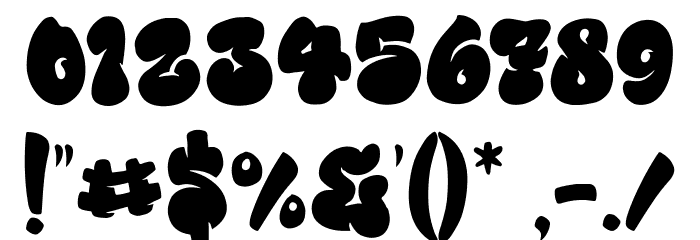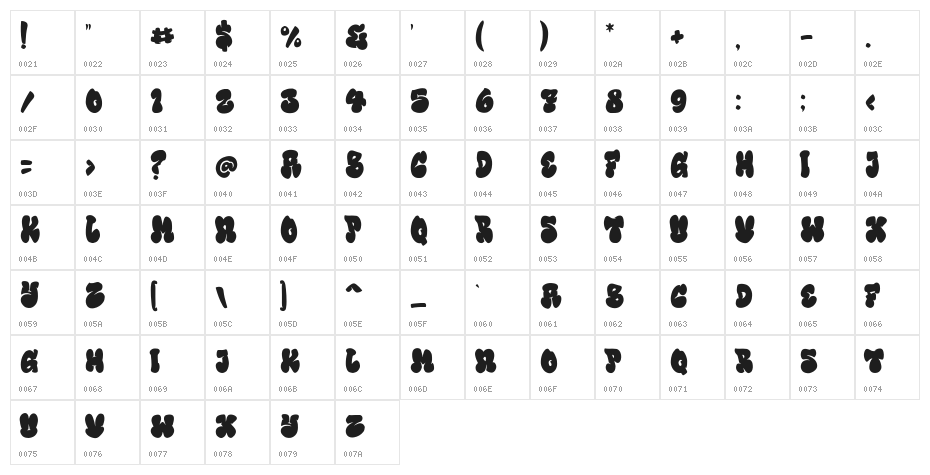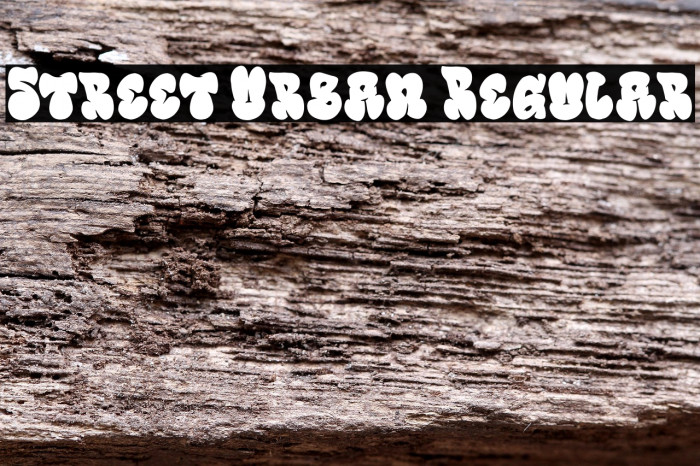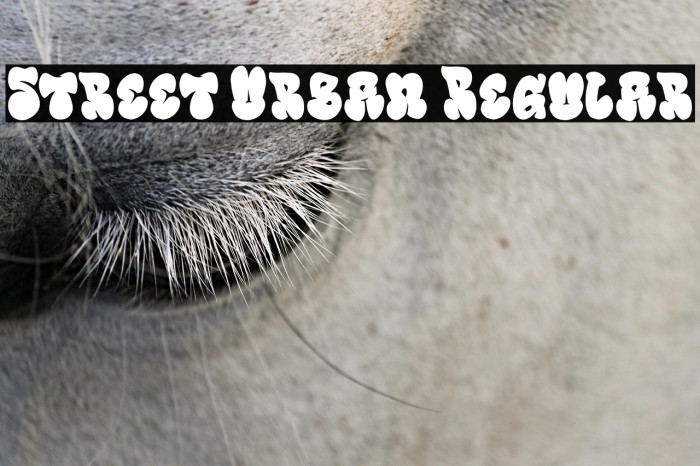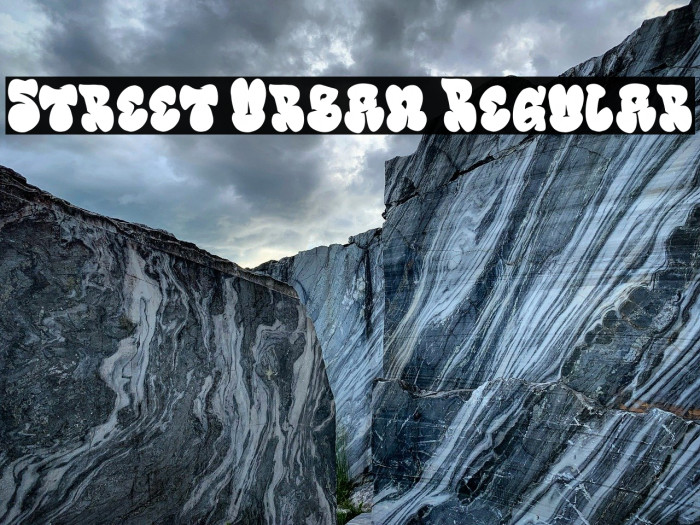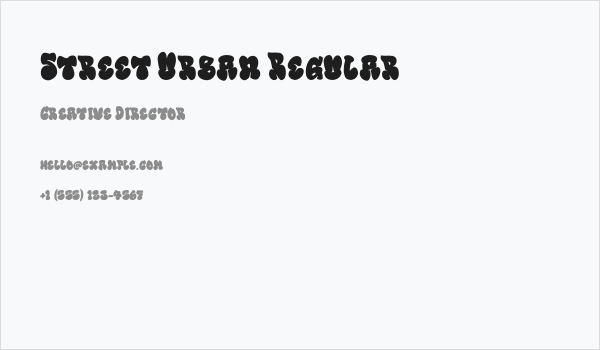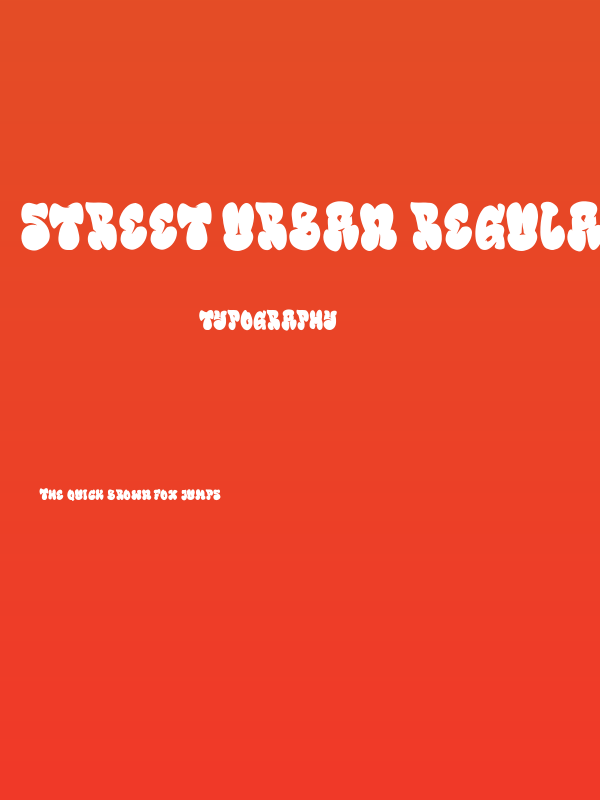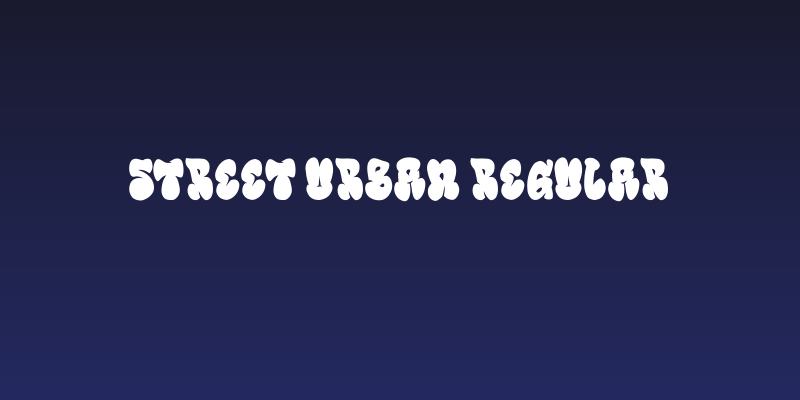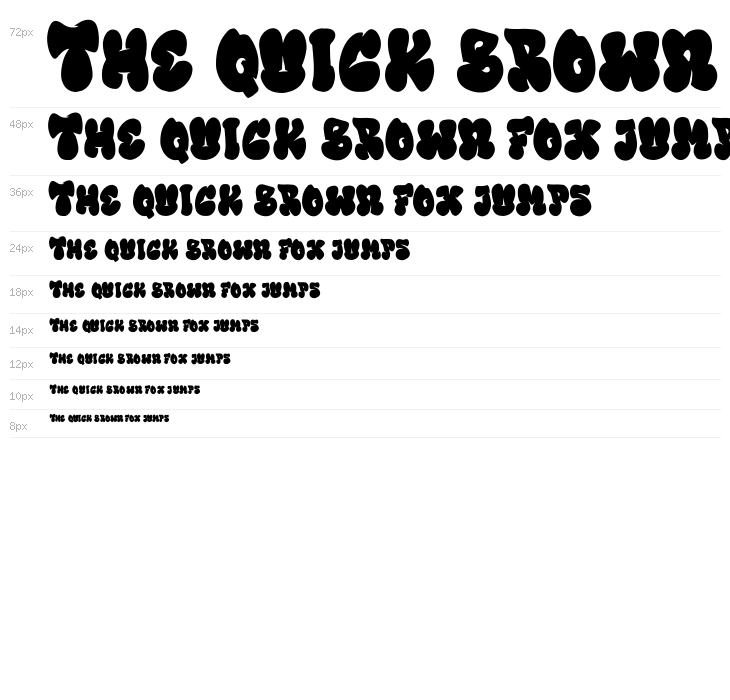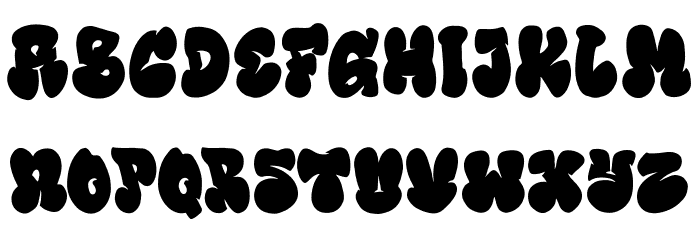
Street Urban Regular Font
Street Urban Regular Description
This font features a bold, playful style with thick, rounded characters that exude a sense of urban flair and creativity. The letters are heavily stylized, with exaggerated curves and a bubbly appearance, making it ideal for projects that require a fun and energetic vibe. The font's unique design is reminiscent of graffiti art, capturing the essence of street culture. Its boldness ensures high visibility, while the rounded edges soften the overall look, adding a touch of approachability. The font includes a full set of uppercase and lowercase letters, numbers, and a variety of special characters, making it versatile for different design needs.
| Font Family | Street Urban |
| Overall Style | Urban, Playful, Graffiti |
| Proposed Projects | Perfect for street art designs, posters, event flyers, and branding that targets a youthful audience. |